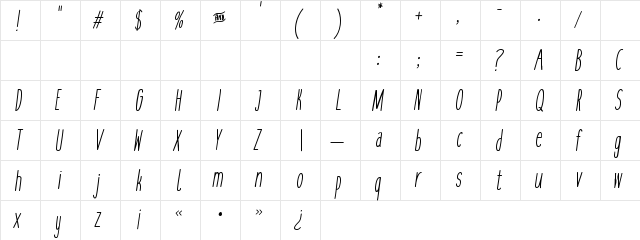
cookies&milk Italic
| Foundry | phitradesign |
| Designer | Philip Trautmann |
Design Context for cookies&milk Typeface
cookies&milk takes a measured approach to typography — its balanced proportions and neutral character make it a reliable workhorse for both digital and print work. The dynamic lean of this cut emphasises speed and emphasis in any layout.
Pro Tip: Try cookies&milk for annotation and caption copy alongside an upright companion — the contrast in angle creates a dynamic but ordered typographic system.